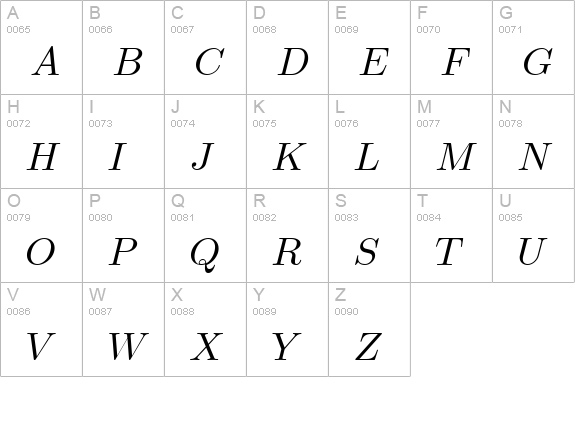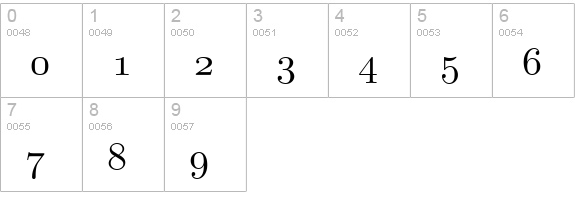
TeXplus MI is a remarkable font that combines elegance and functionality, making it the perfect choice for any design project. With its sleek lines and sophisticated curves, this font exudes a sense of professionalism and style. Designed with utmost precision and attention to detail, TeXplus MI is sure to captivate and engage the audience. One of the most notable aspects of TeXplus MI is that it is freely available to download at FontsMarket.com. This means that you can easily access this exceptional font without any cost, making it an ideal option for designers on a budget or anyone looking for high-quality fonts without breaking the bank. Whether you are working on a branding project, creating eye-catching advertisements, or designing stunning invitations, TeXplus MI will effortlessly elevate your designs to new heights. Its versatility allows it to be used for both headline and body text, ensuring consistency throughout your project. The legibility of TeXplus MI is exceptional, making it a reliable choice for both print and digital media. Its clean and well-defined characters ensure that your message is conveyed with clarity and impact, regardless of the size or medium. In addition to its aesthetic appeal and practicality, TeXplus MI is also compatible with various software and design applications, making it incredibly versatile and user-friendly. This means that you can seamlessly integrate this font into your existing workflow, saving you time and effort. Overall, TeXplus MI is a must-have font for any designer or creative professional seeking a stylish and functional typeface. With its free availability at FontsMarket.com, there is no reason not to explore the endless possibilities that this font has to offer. Download TeXplus MI today and experience the beauty and versatility of this remarkable font.